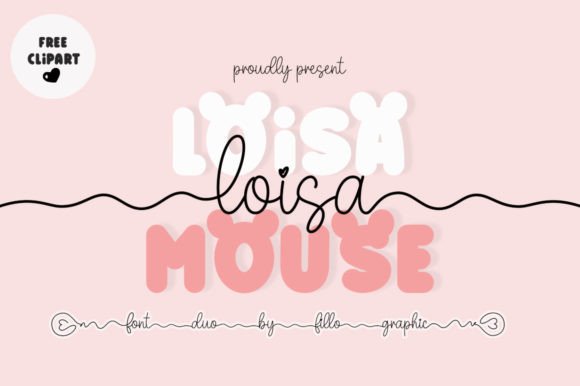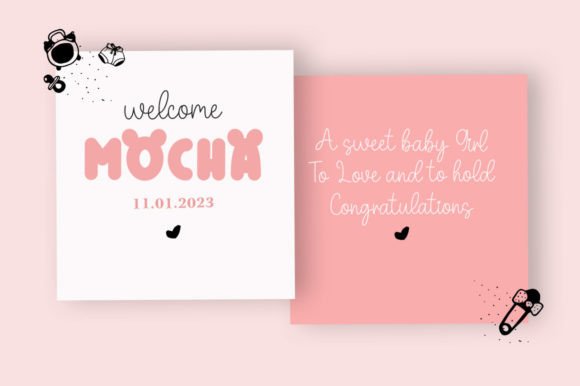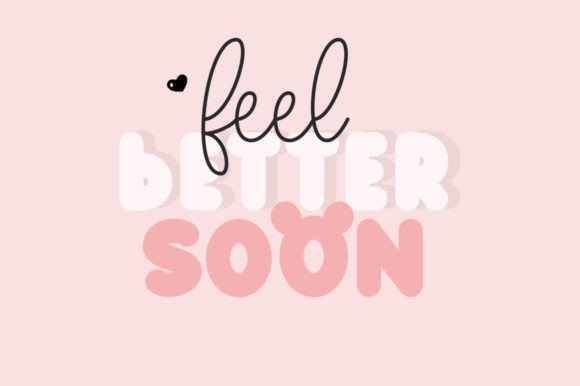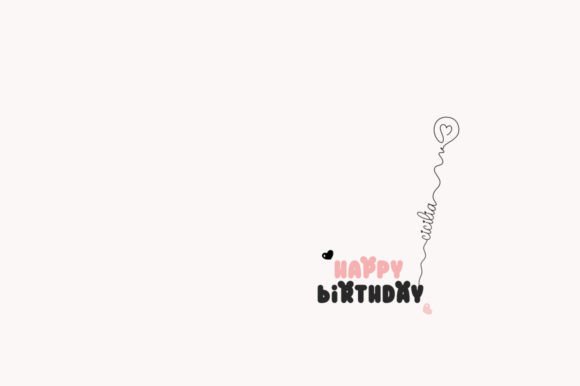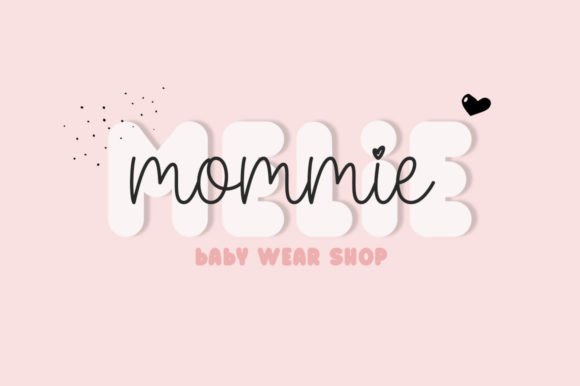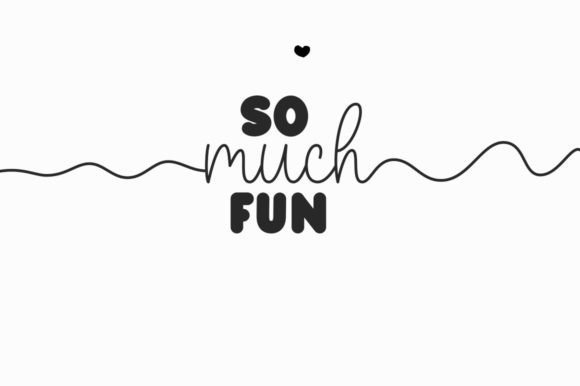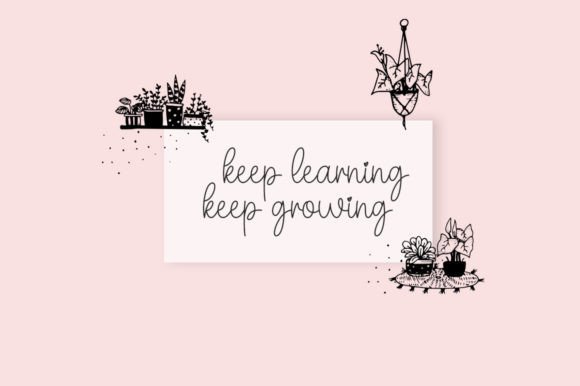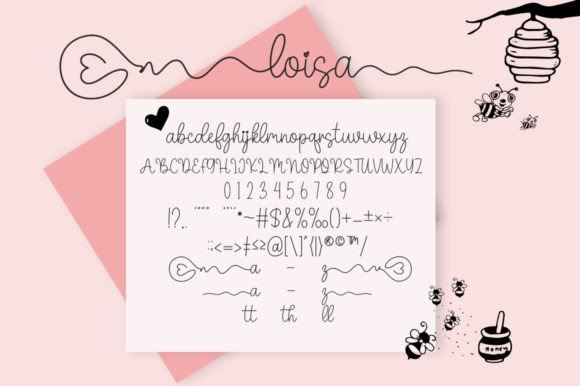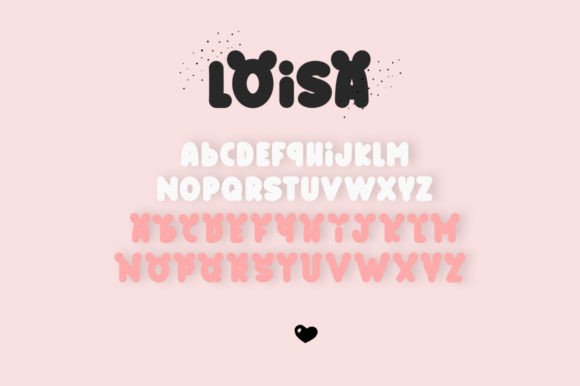
Loisa is a versatile duo font (script and display). It will add a unique fun spark to any design project that you wish to create! This font is PUA encoded which means you can access all of the amazing glyphs and ligatures with ease!
Loisa Font